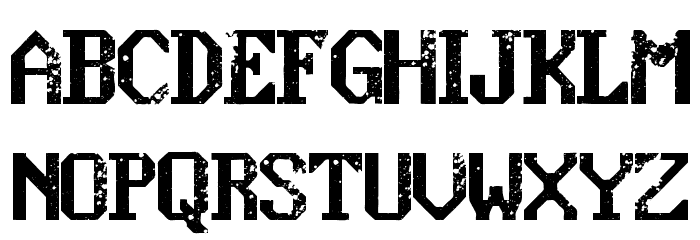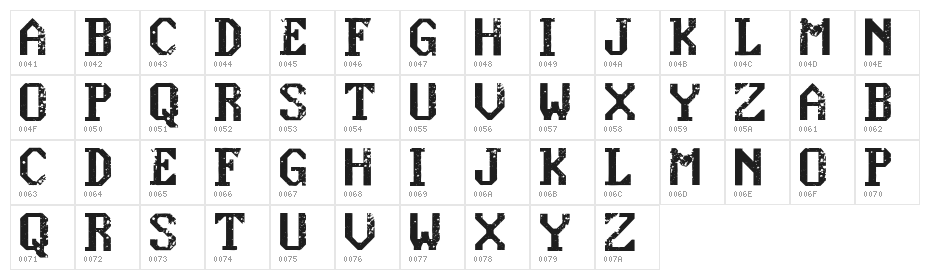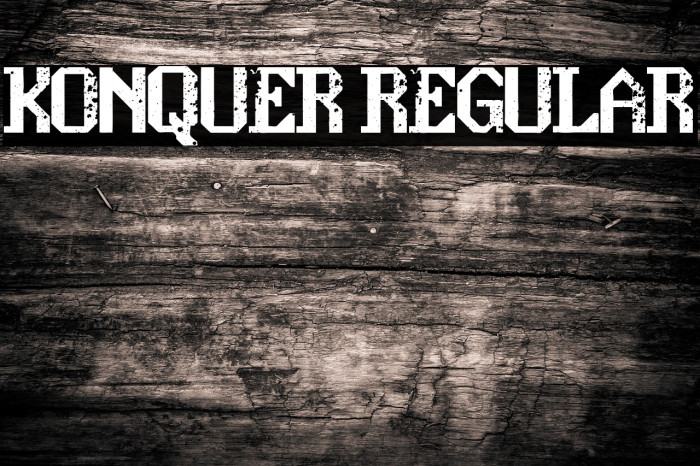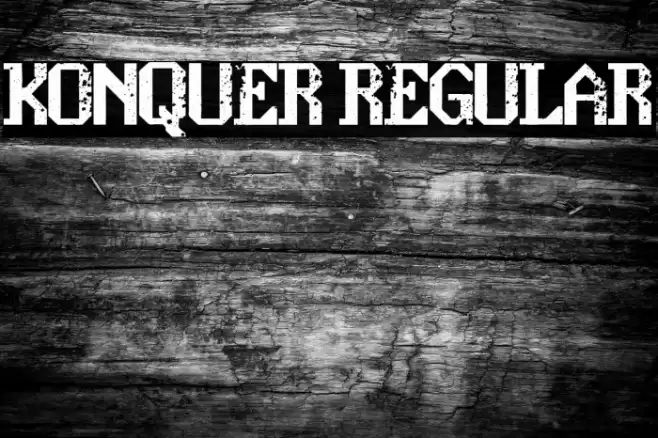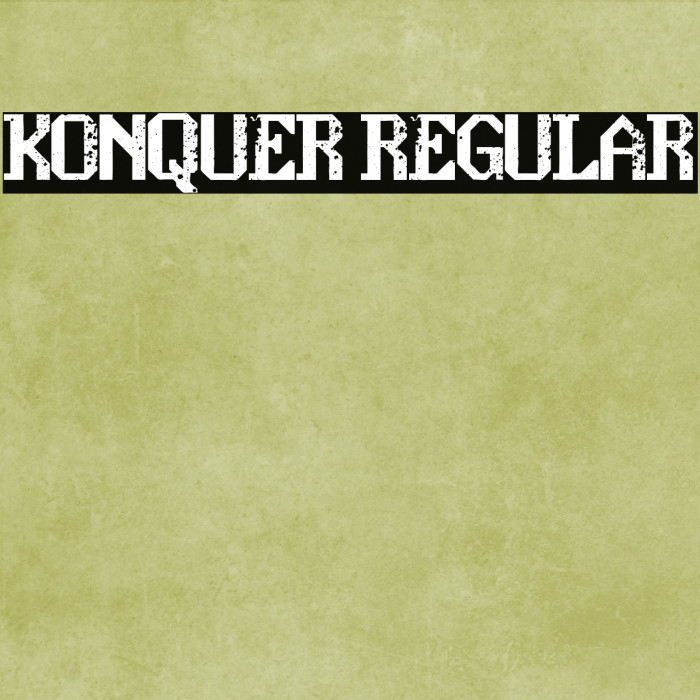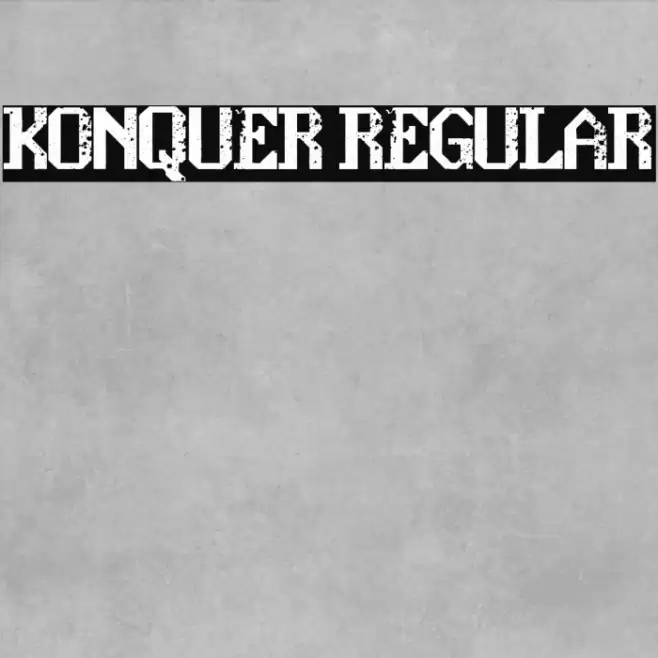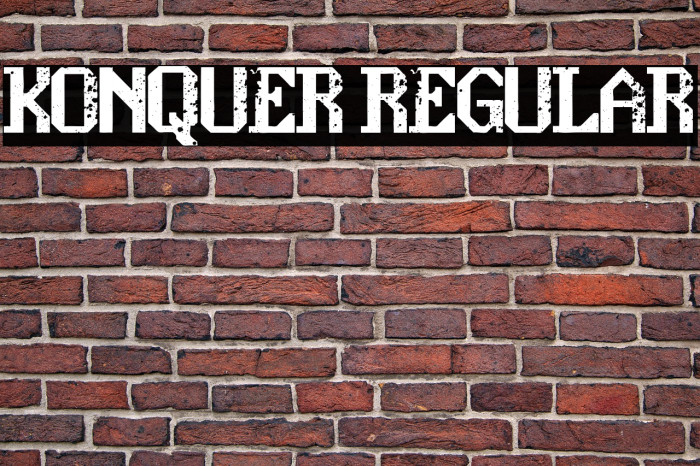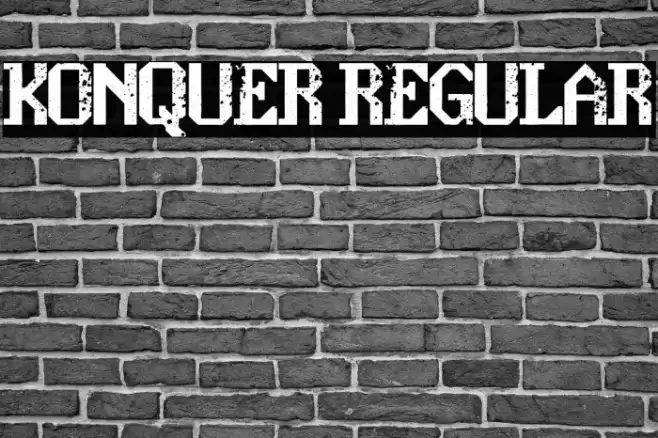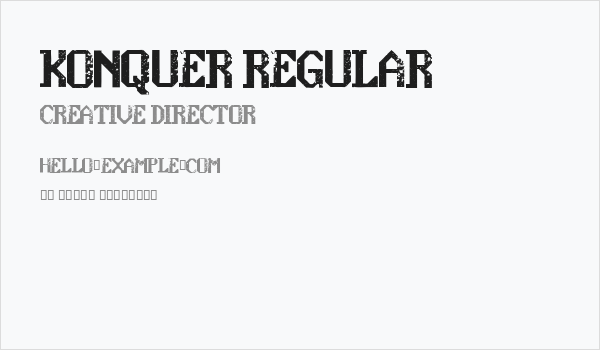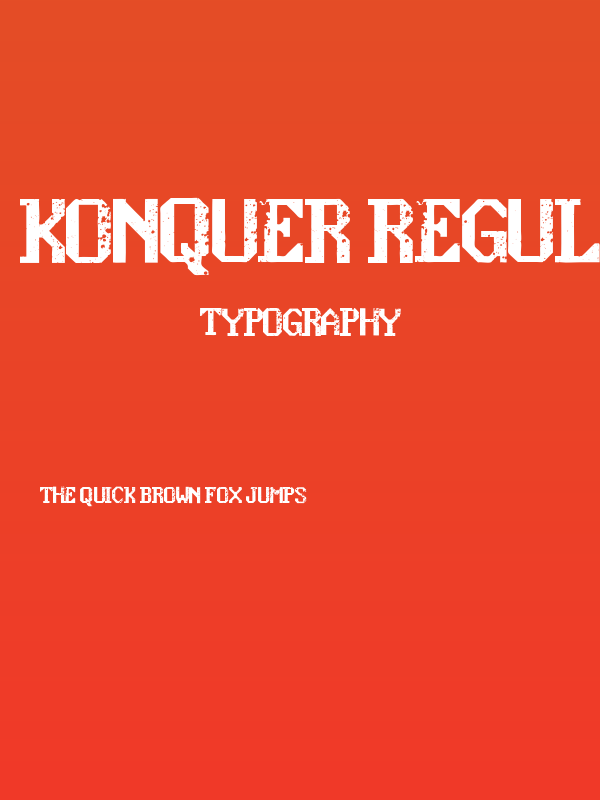
konquer Regular Font
konquer Regular Description
This font features a bold, distressed style with a rugged, textured appearance. The characters are uppercase and have a blocky, geometric form, giving them a strong and impactful presence. The distressed effect adds a vintage or grunge aesthetic, making it suitable for designs that require a bold statement. The texture varies across the letters, providing a unique and dynamic look. This font is ideal for projects that aim to convey a sense of strength, resilience, or an edgy, urban vibe.
Overall StyleVintage
Proposed ProjectsIdeal for posters, album covers, branding for edgy products, or any design needing a strong, vintage look.